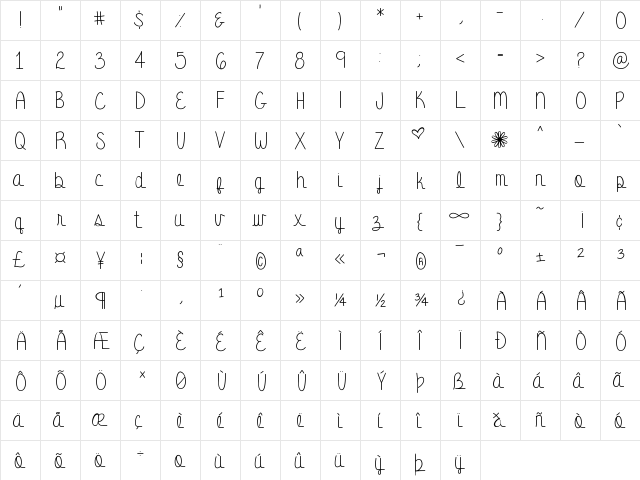
Eternal Promise Regular
Design Context for Eternal Promise Typeface
Eternal Promise is a composed and adaptable typeface that performs quietly and consistently across a wide range of design contexts.